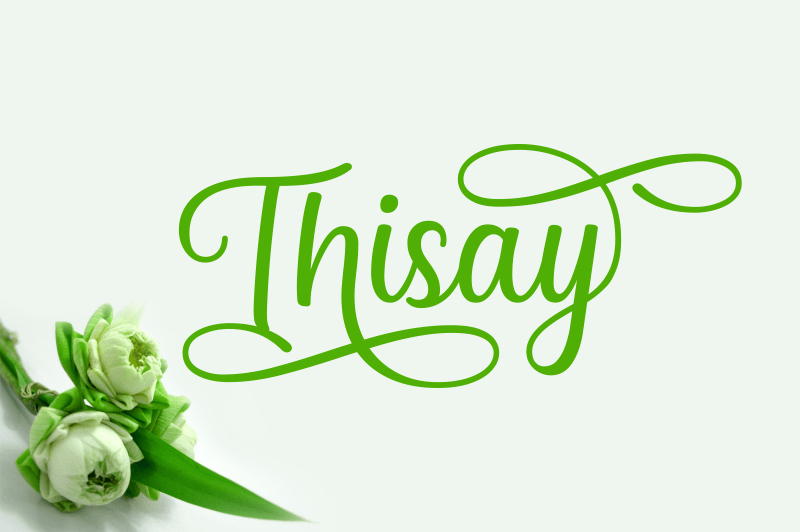
Thisay Script Font
Thisay is a gorgeous and reliable script font, perfect for a wide range of display and headline projects. This font comes with embellished swashes that can give your typographic projects a special and unique feel.